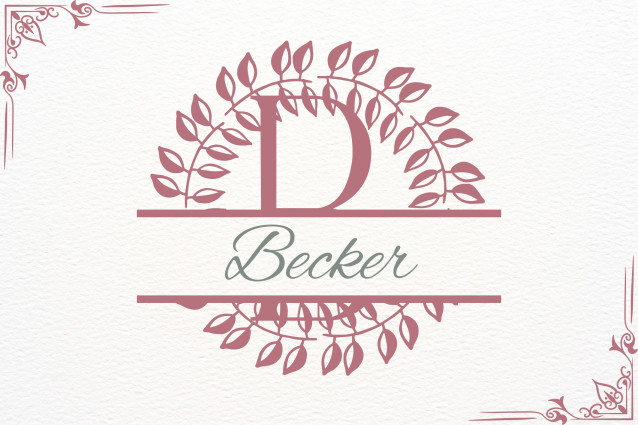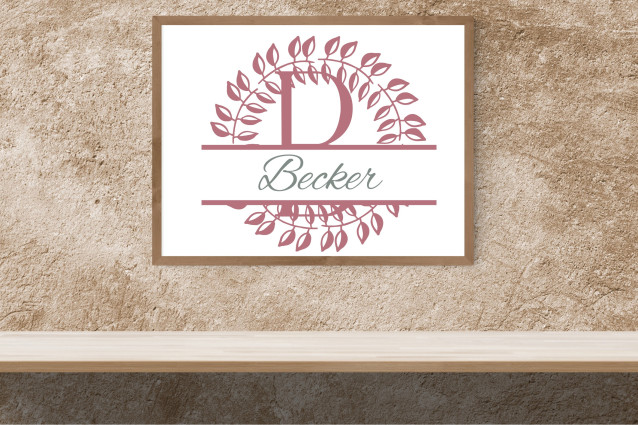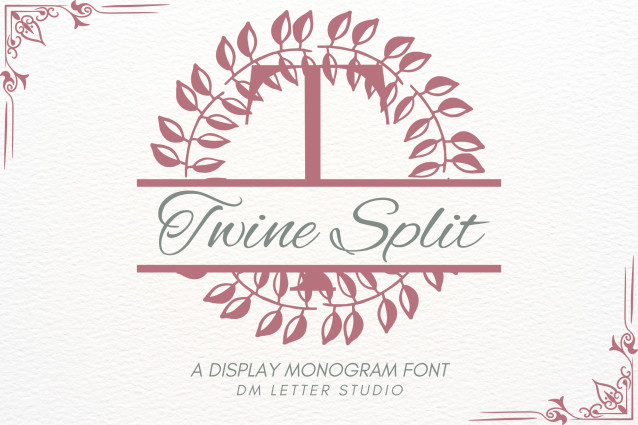
Twine Split Monogram Font
Twine Split Monogram Font is a sophisticated serif split font inspired by woven threads and rustic charm. Each uppercase letter is accented with delicate twine-like details and features a centered horizontal split—perfect for inserting names, dates, or custom text. Ideal for wedding signage, boutique logos, packaging, and personalized gifts, this font blends handcrafted beauty with functional customization.